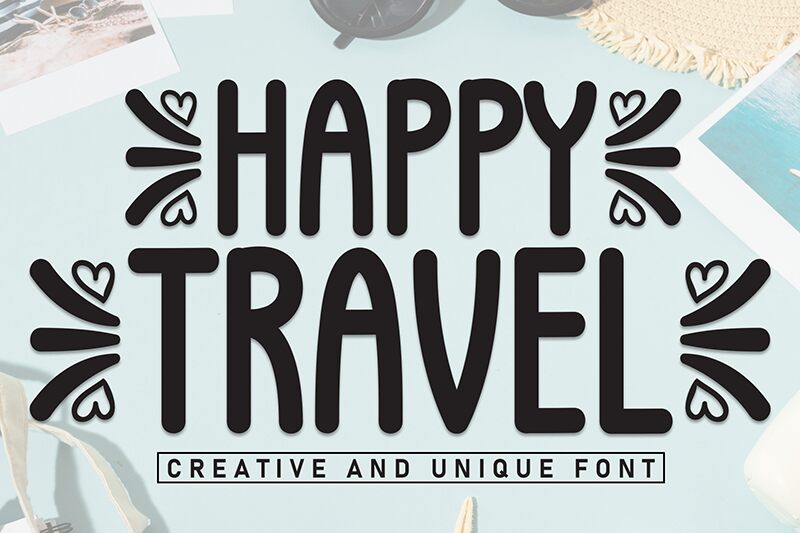
Happy Travel
Happy Travel font is a condensed handwritten font designed by Andi Moz. Its casual and lively style brings a friendly, retro-inspired touch to your projects. With cohesive, flowing lines, this free handwritten font conveys playfulness while maintaining readability.
Use it to design playful logos and labels that leave a memorable impression on viewers. Highlight the style of magazine layouts, invitation cards, headers, branding items like business cards, packaging boxes and bags; merchandise items and pins; postcard diaries or jewelry accessories even t-shirts!